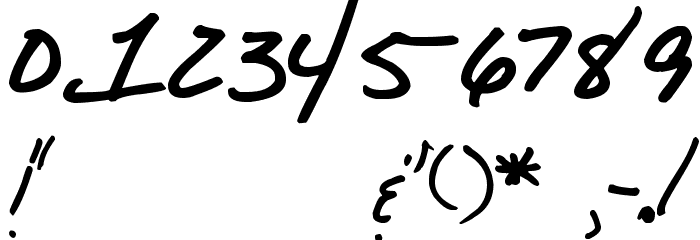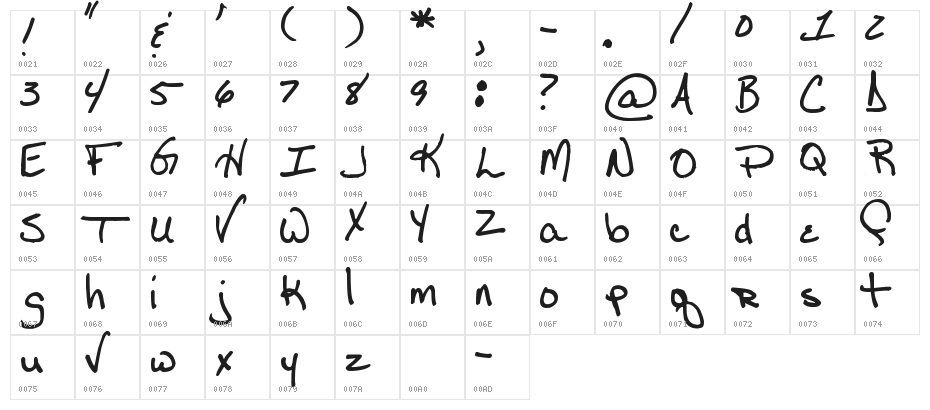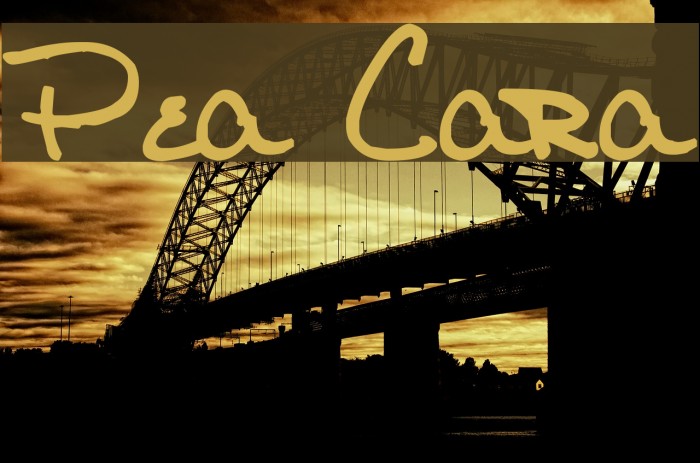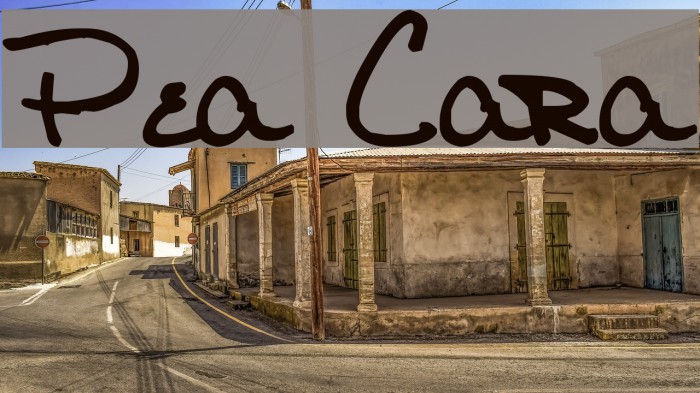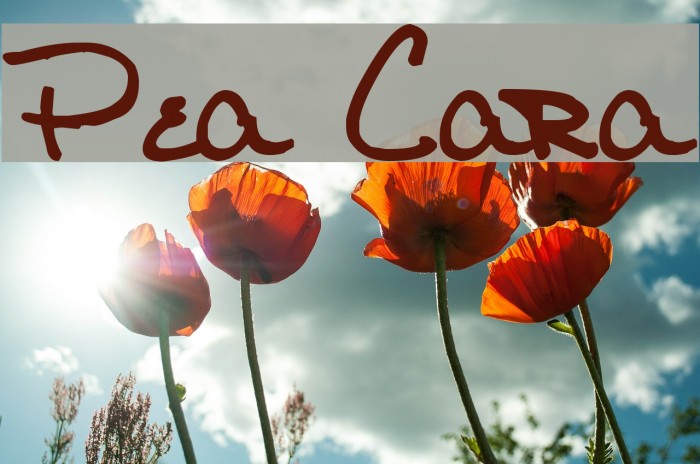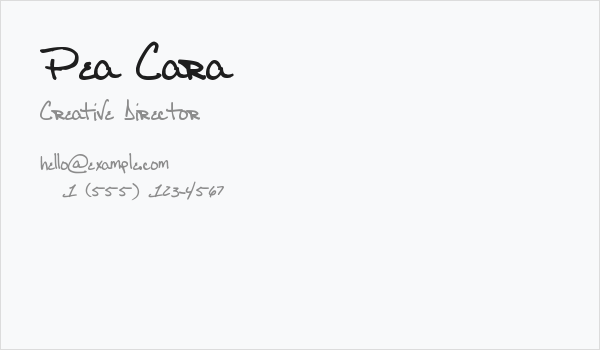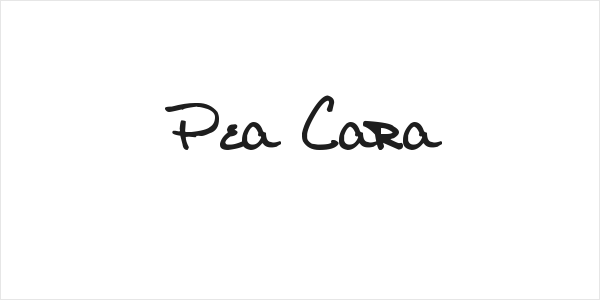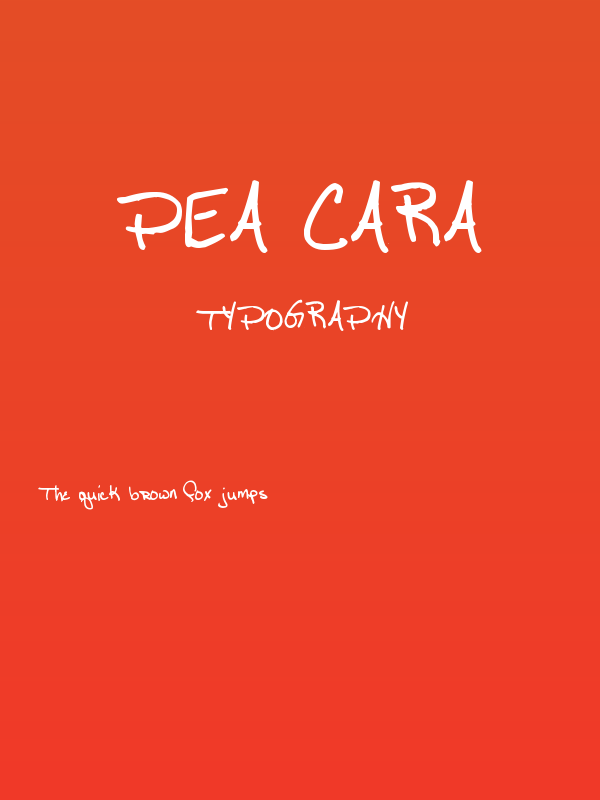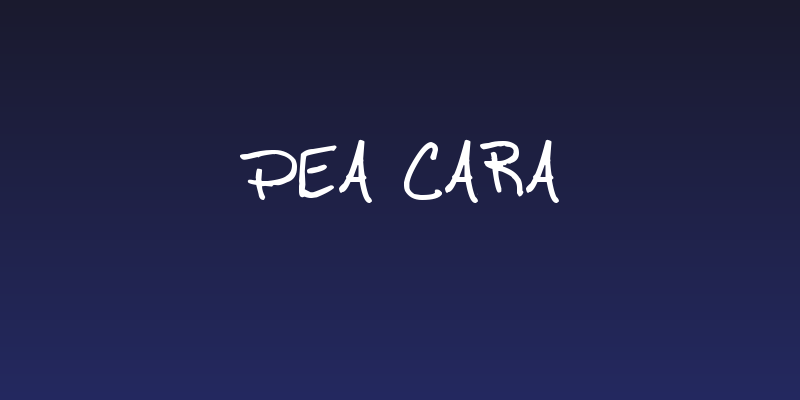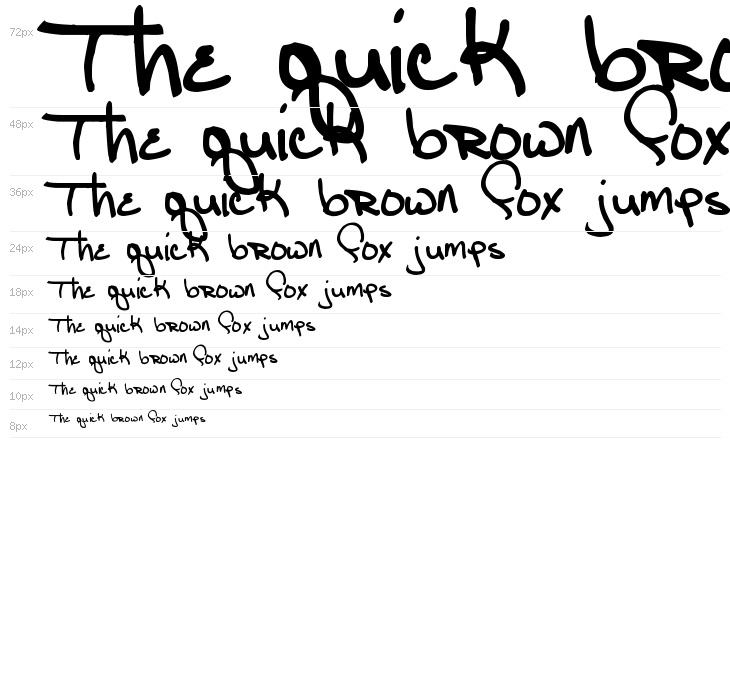
Pea Cara Font
This font features a playful and informal handwritten style, characterized by its loose and flowing strokes. The letters have a casual, almost whimsical appearance, with varying stroke thickness that adds to its dynamic feel. The uppercase letters are bold and slightly irregular, while the lowercase letters maintain a consistent, friendly look. Numbers and special characters follow the same informal style, making the font suitable for creative and personal projects. The overall design is approachable and lively, perfect for conveying a sense of fun and spontaneity.
Overall StyleCasual
Use CaseHeadlines, Personal projects, Informal communications
Proposed ProjectsIdeal for greeting cards, children's books, casual invitations, and personal branding.